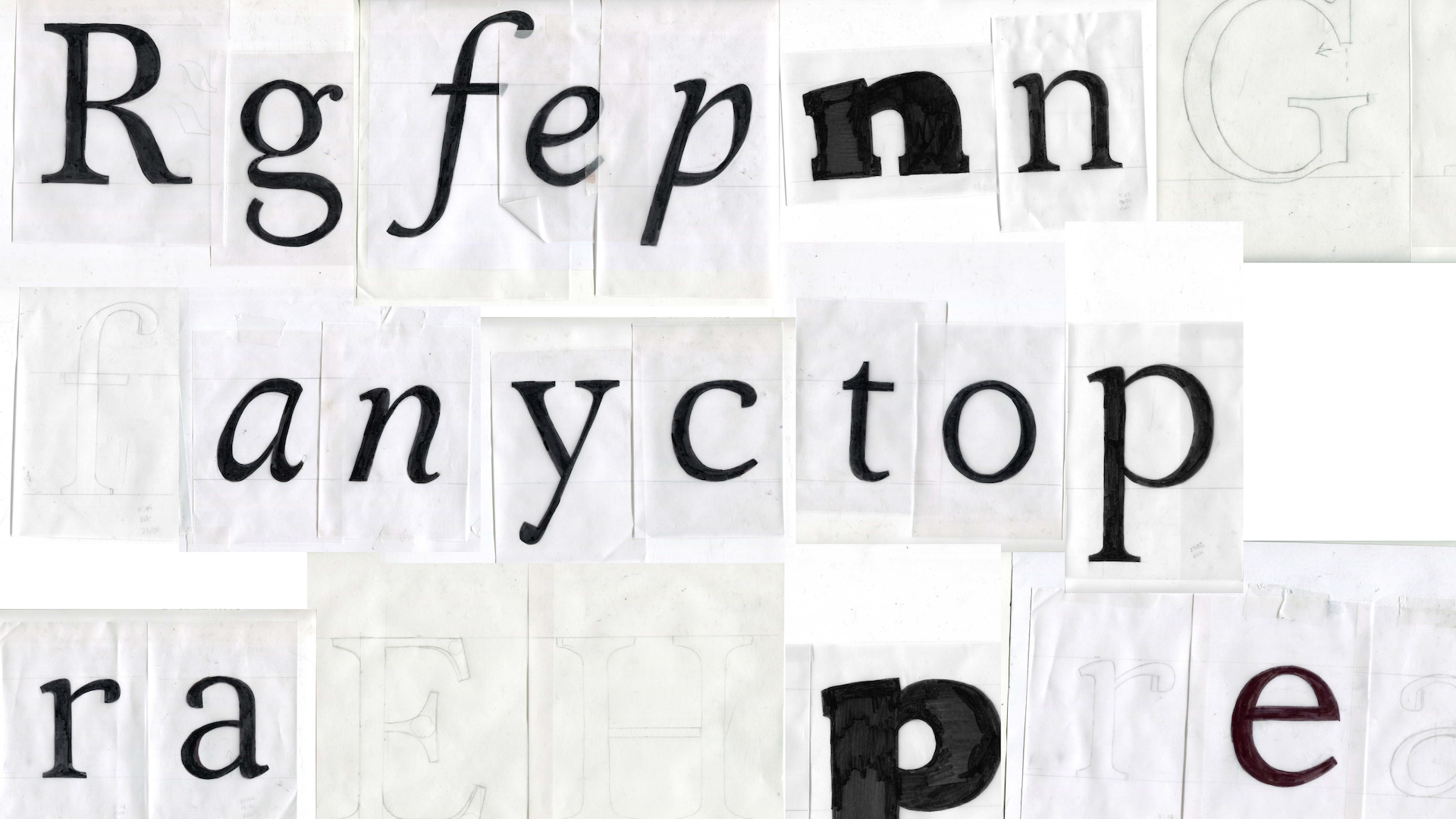
Pomme
I planned on taking the workshop at TypeParis as a chance to get more acquainted with Latin type design as I had never designed a Latin typeface.
So, I put my efforts and the knowledge I was absorbing into designing a text typeface. I was told that this is how we learn most, and indeed it was.
I am a graphic designer that leans immensely towards print and publication. And out of all printed works I find the world of children’s book the most fascinating. And so I combined my love for books and the knowledge I was missing in a brief: design a text typeface for children’s books.
I based myself on Baskerville, an old style typeface that was used most in books and novels and collected samples from the visit at the libraries. It is a very legible typeface in its proportions and spacing so i tried to keep that as much as possible. However, the counters have been enlarged to ensure legibility for the young audience.
I found that its a brief that I’m partially able to achieve in 5 weeks and expand as much as I’d like after that. for example, I could include funky drop caps and lots of fun ornaments. Petra Dočekalová’s workshop and talk inspired me to later on perhaps include an upright connected version too.
Learning and understanding the mechanisms of the Latin script helped me feel more confident about it. And after weeks of sketching on tracing paper, filling in letters then drawing bezier curves and moving points right and left, Pomme was formed.
Pomme is a text typeface for children’s books. It includes 4 weights and an italic – regular, semibold, bold, extra bold. The extrabold is intended mainly for display use and titles.
In order to be more appealing to young readers, Pomme can be paired with all kinds of illustrations and works well on both small and big text sizes.
If Pomme was a person, it would be a teacher; approachable but assertive. The letterforms create a sturdy and orderly texture. The sharp details in the terminals are hidden in an overall of smooth curves. The mixed combination of sharp details and smooth letterforms creates a clear flow of reading and ensures legibility for these young readers.